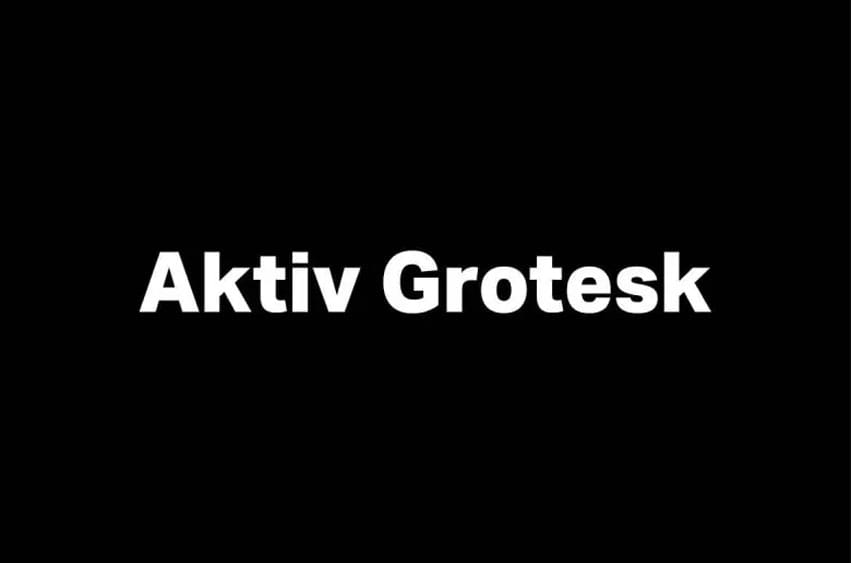
Aktiv Grotesk Font is an enlarged Sans Serif font designed and developed by Daltonmaag, making it the perfect option for branding tasks requiring multiple fonts or to maintain a quiet atmosphere. As opposed to font families featuring grotesque designs, Aktiv Grotesk presents itself in an inoffensive manner.
Aktiv Grotesk was designed to remain true to the grotesque style, pairing perfectly with serif font families like Cordale King’s Caslon and Lexia Font Families.